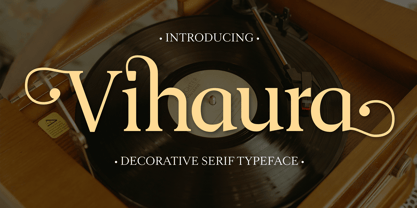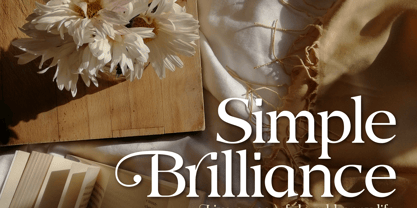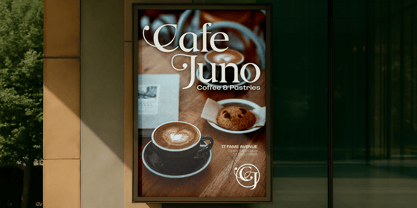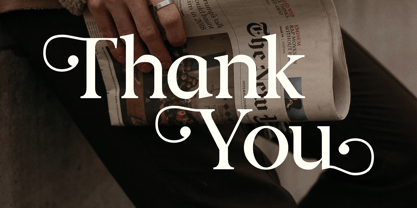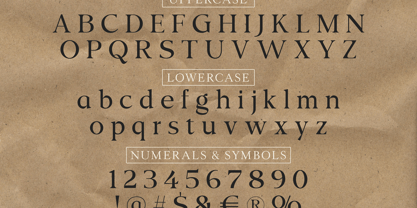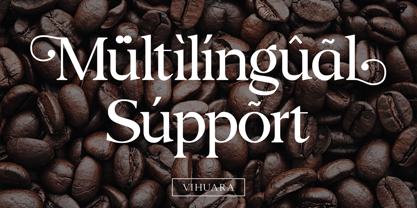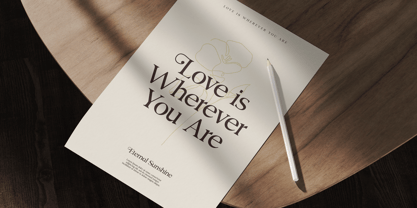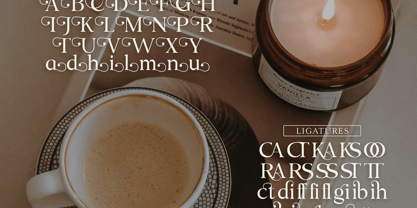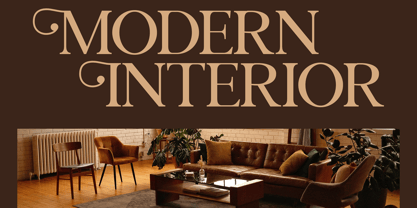
Vihaura
by Krafted
The Vihaura Font Family was designed by Heri Imanudin and published by Krafted. Vihaura contains 1 styles. More about this family
Vihaura is a bold, artistic serif typeface that adds instant flair to any design. Its stylish curves and carefully detailed strokes bring creativity and elegance together in one truly distinctive style. Whether you're designing posters, logos, wedding invitations, magazines, or websites, Vihaura helps you stand out effortlessly. Let its expressive letterforms elevate your brand and make every single design project look polished, memorable, and unmistakably unique.
Designers: Heri Imanudin
Foundry: Krafted